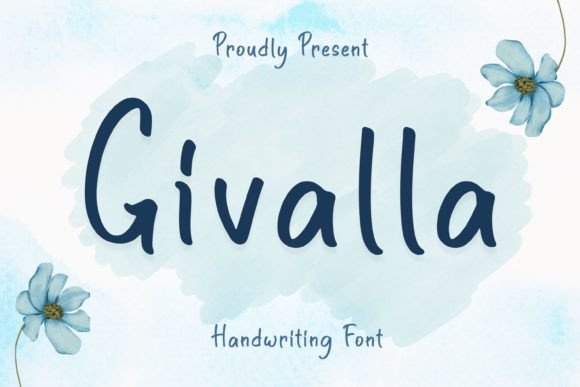
In a world where creativity reigns supreme, the Givalla Script Font family emerges as a breathtaking symphony of artistry and elegance. With its intricate strokes and flowing curves, Givalla transcends the boundaries of ordinary typography, inviting you into a realm of visual enchantment.
As your fingers dance across the keyboard, Givalla transforms your words into a captivating melody, leaving an unforgettable impression on all who behold it. Its enchanting characters possess a timeless quality, reminiscent of handwritten letters penned with love and care. Each glyph, meticulously crafted, carries a story within its form, adding depth and personality to your digital creations.
Whether you're designing invitations for that special occasion, crafting posters that demand attention, or embarking on a digital art journey, Givalla is your muse, your trusted companion. It breathes life into invitations and announcements, bringing a touch of sophistication to your wedding invitations, birthday cards, and baby shower invitations. Its graceful strokes add a touch of elegance to posters and flyers, making them stand out amidst the noise. And as you venture into the digital realm, Givalla's versatility knows no bounds. From social media graphics that captivate audiences to website designs that exude professionalism, Givalla elevates your creations to new heights.
With every stroke of this extraordinary font, you'll discover hidden treasures—a world of emotions, a tapestry of dreams, and a boundless ocean of imagination. Givalla is more than just a font; it's an experience, an expression of your unique style and vision. Embrace the allure of the Givalla Script Font family and let your creativity soar to unprecedented heights.